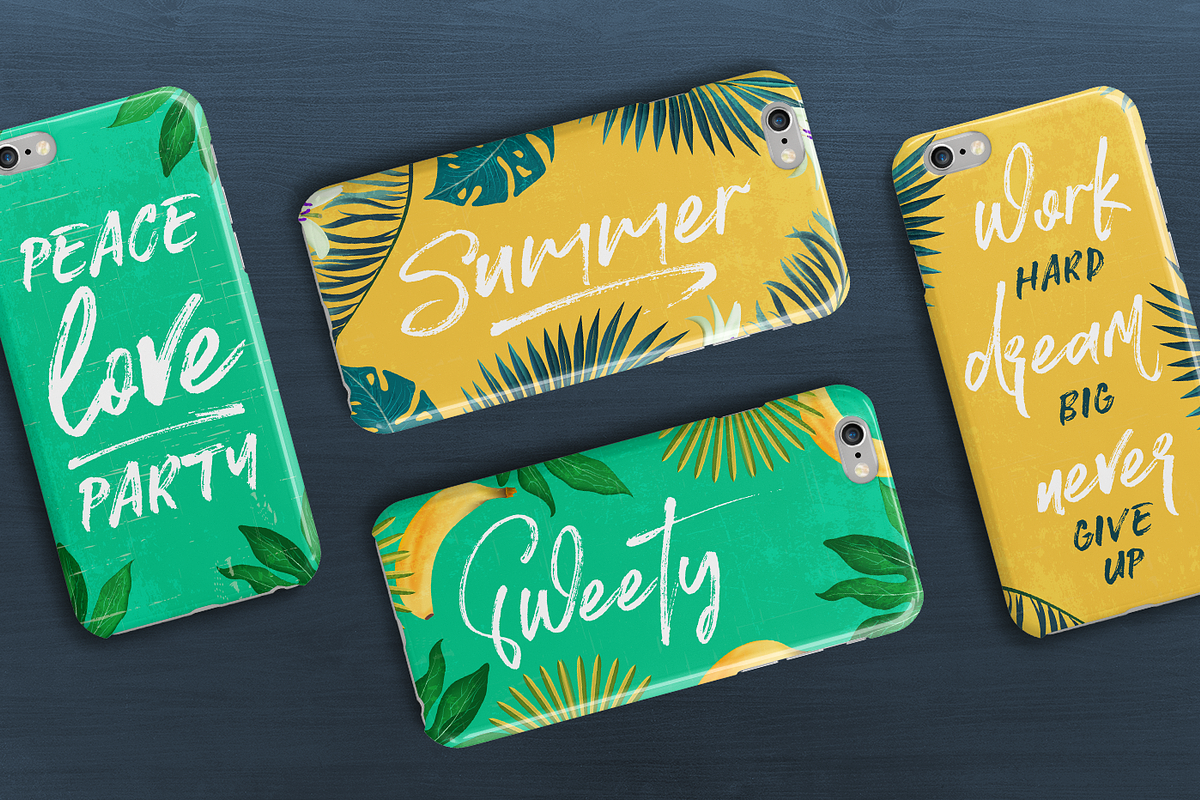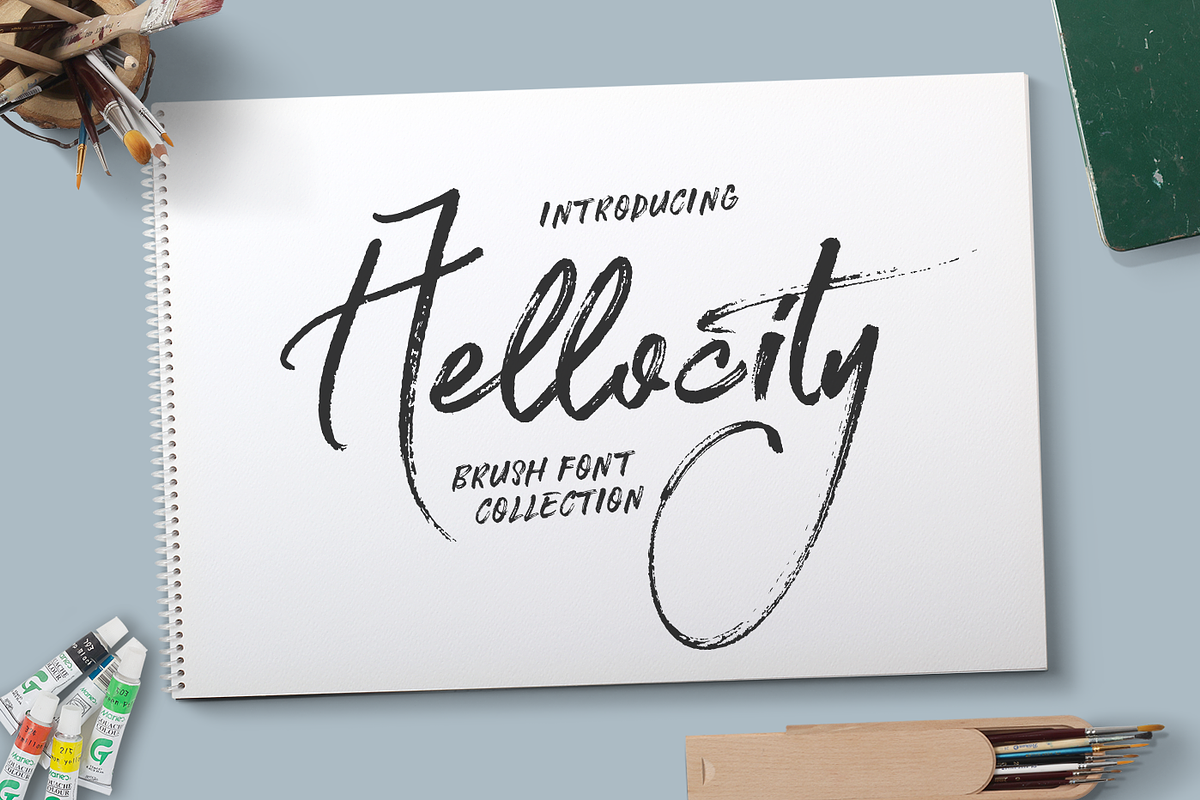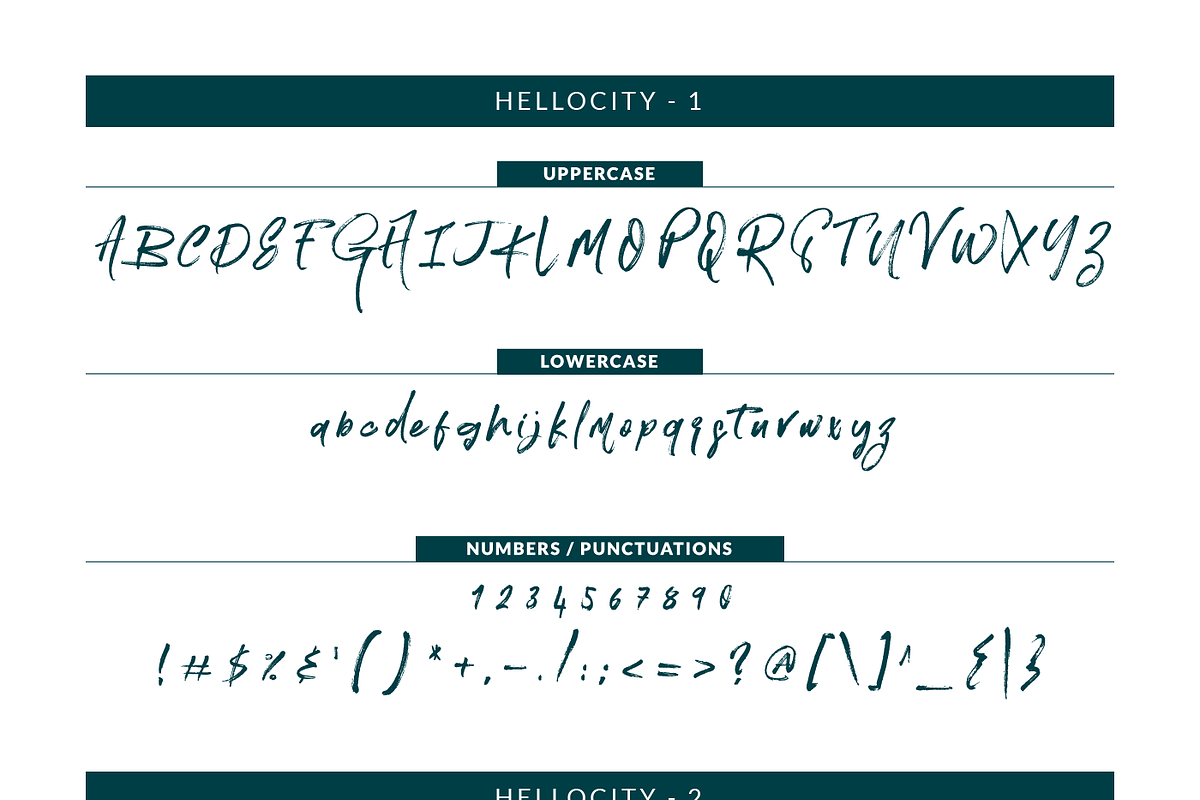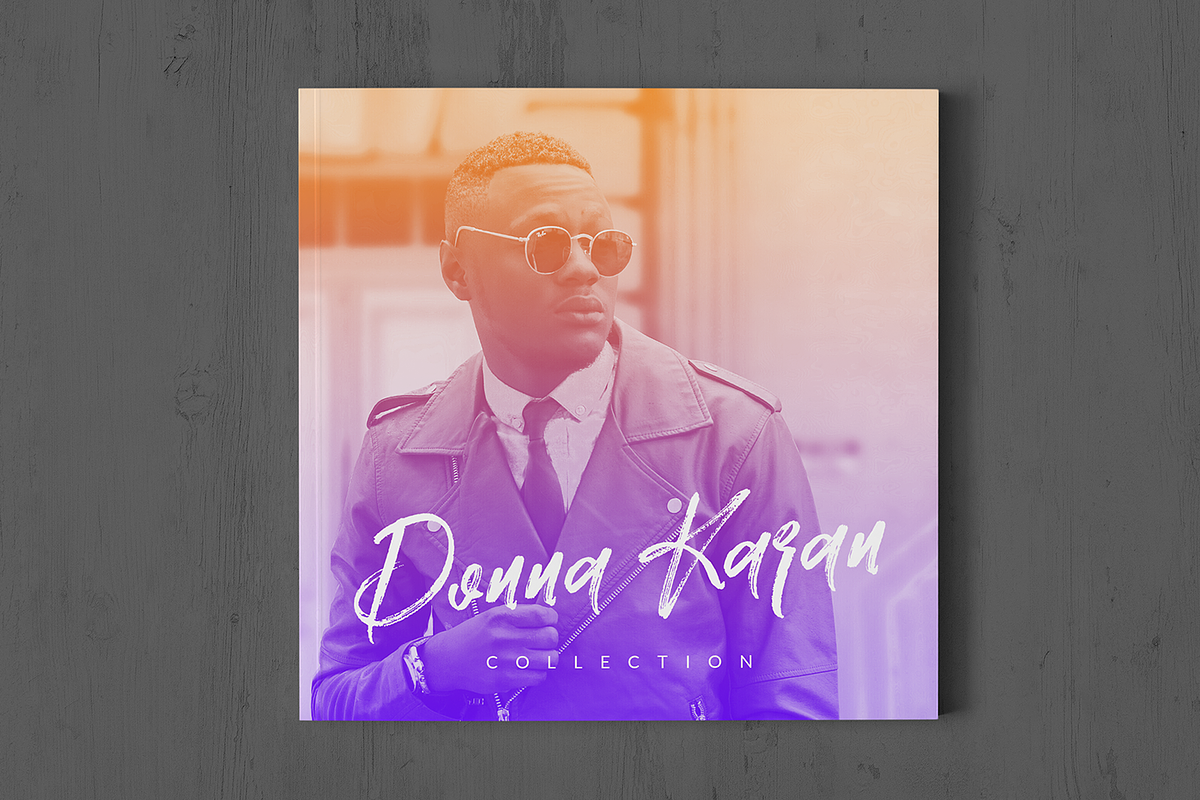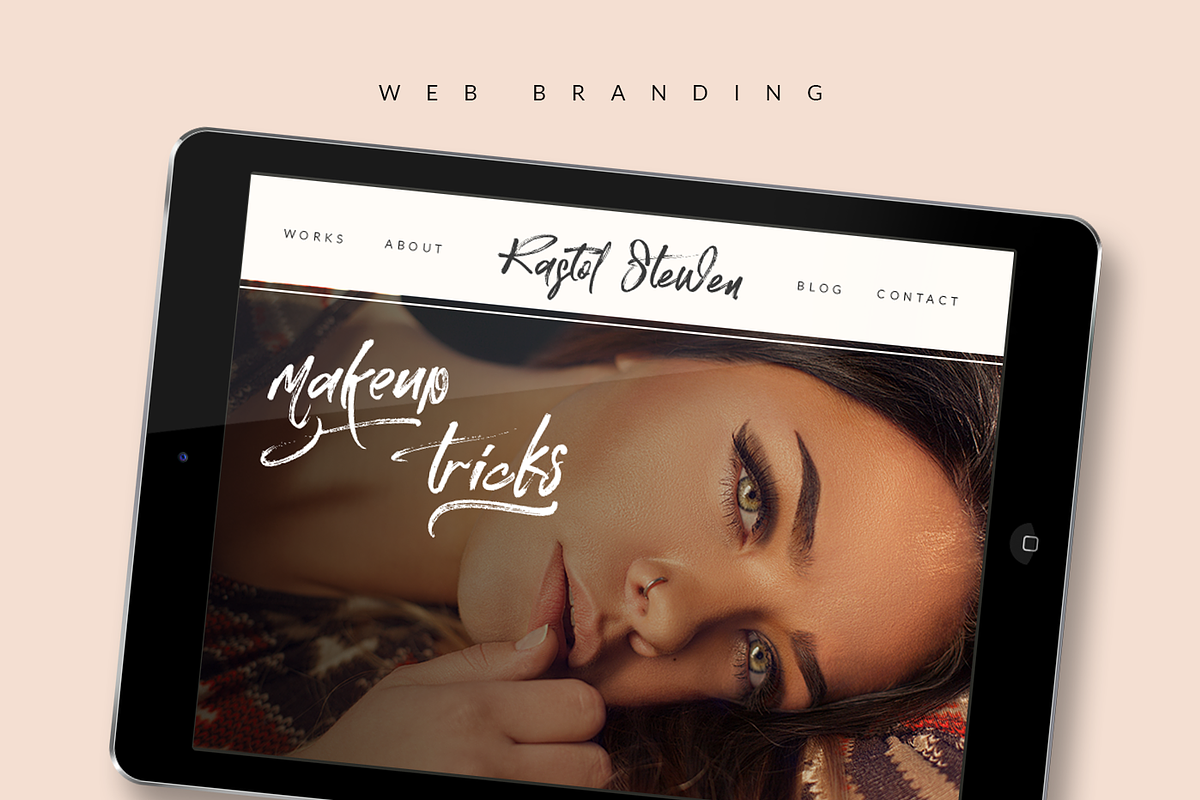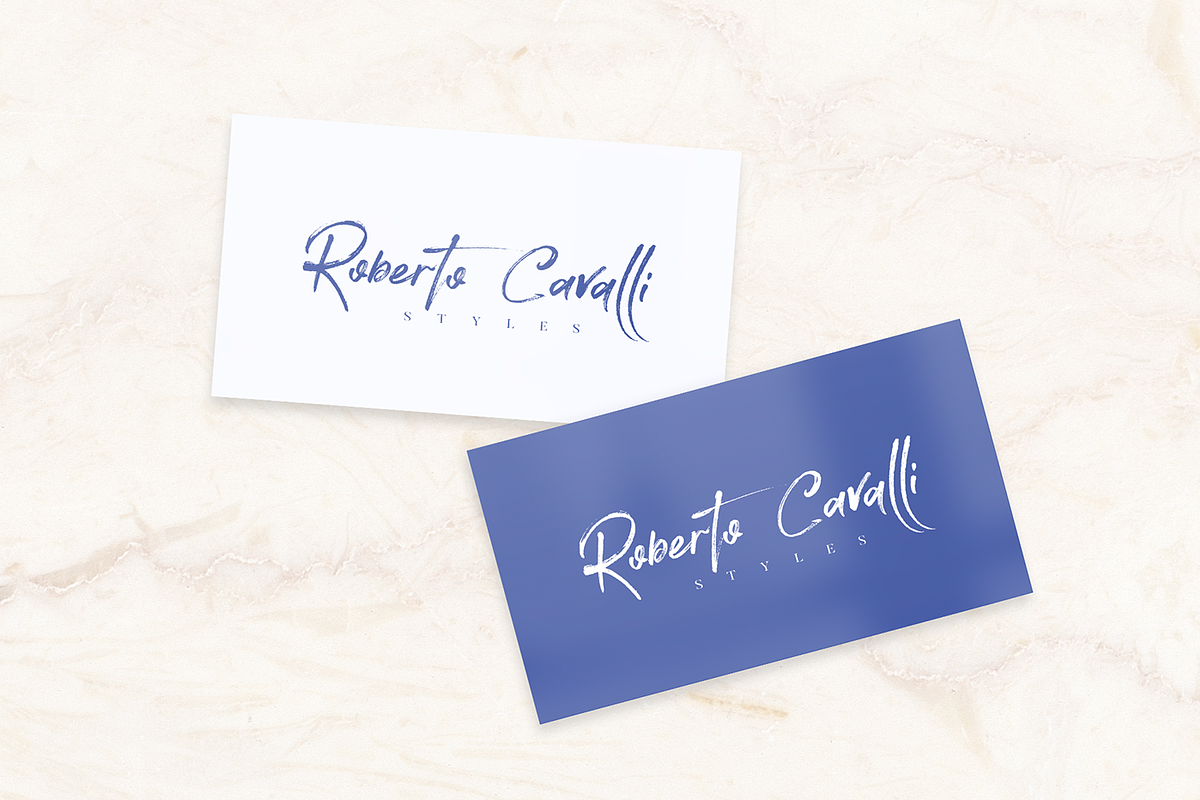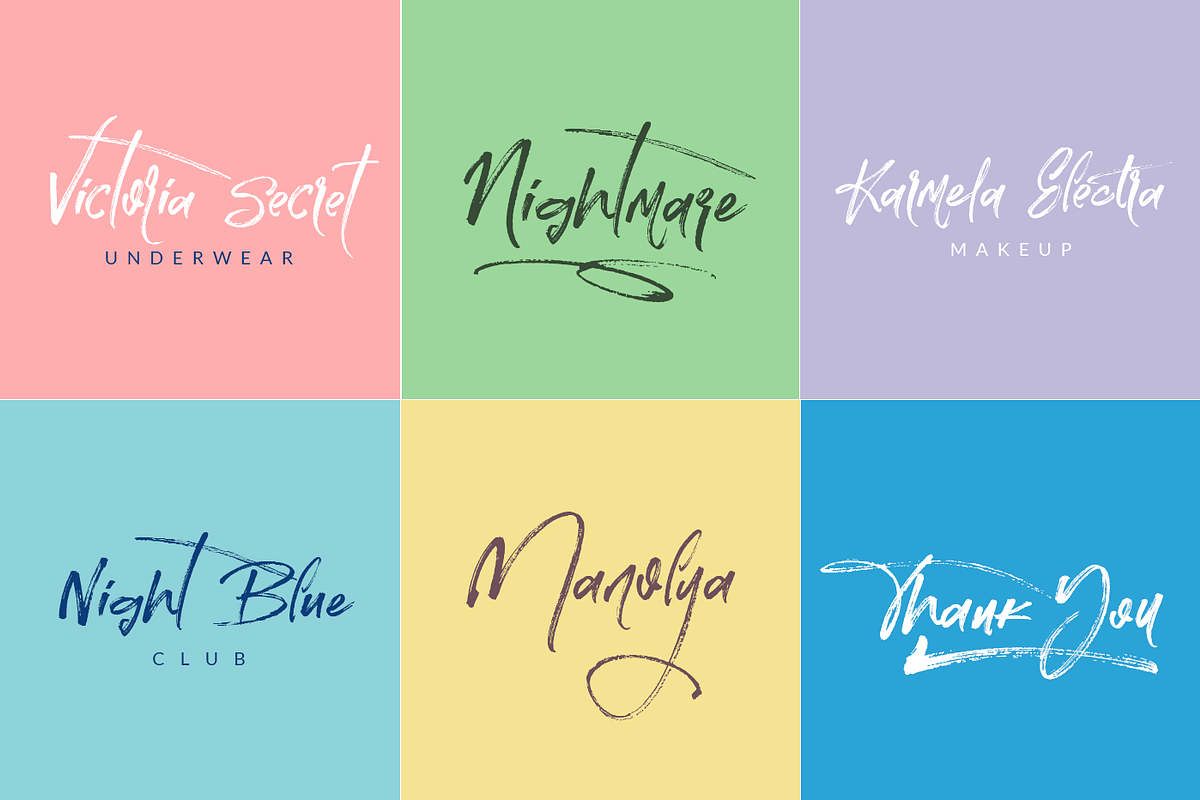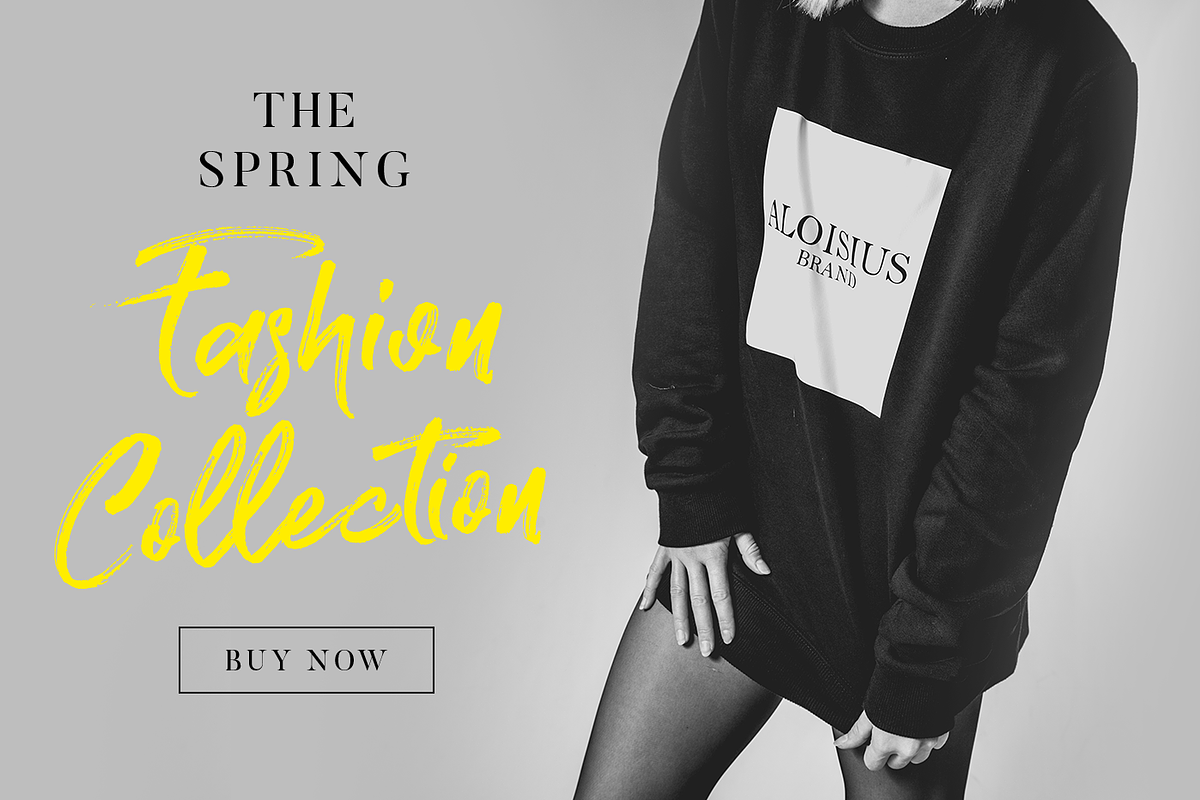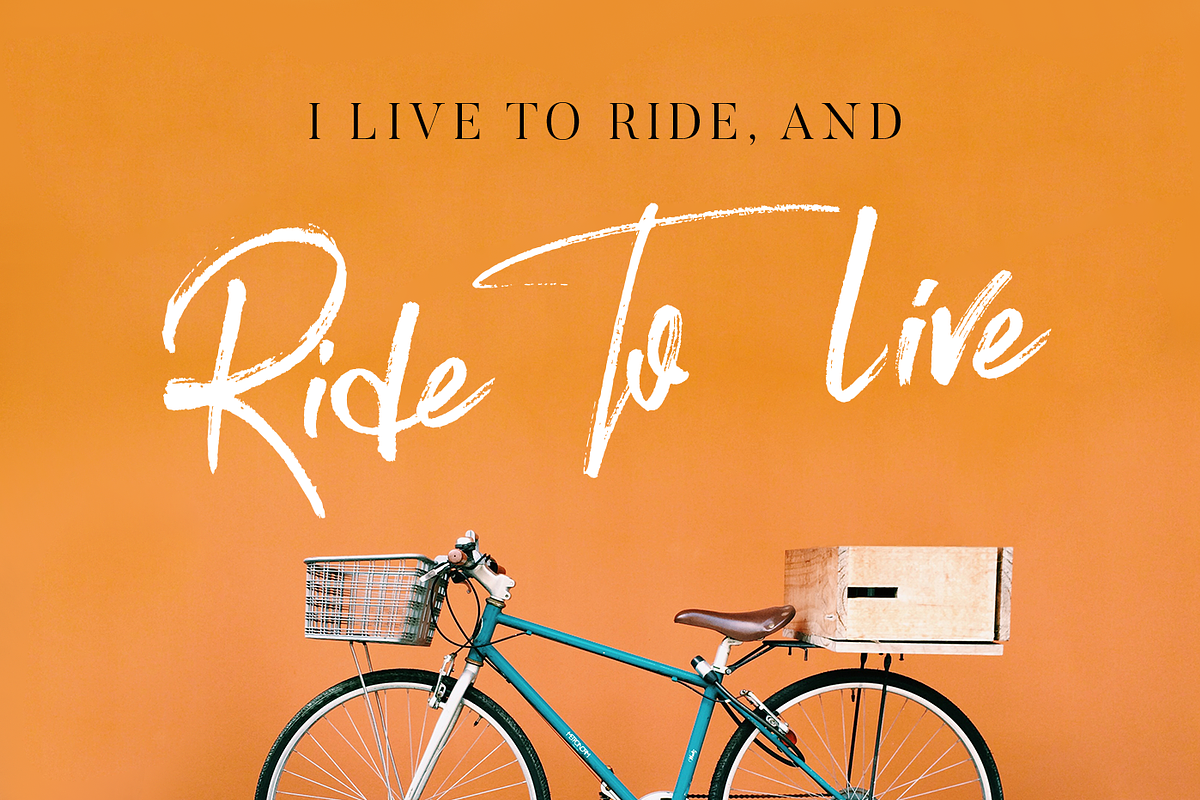
Hellocity
Hellocity Brush Font : Hello City Brush Font has almost an unique design that posseses elegancy and charm. Fluidity of ink and hardness of brush created the unique characteristics of the font. You can see the harmony of the curls among the letters. With Hellocity, you can make your projects, brands, presentation of your collections, magazines, logos, packagings and websites be eye-catching with pleasure. Hello city includes 5 font files ;
These 3 files above can be used together to create much more combination even for the same word. Apart from 3 font files, you can bring your designs into the forefront with alternative letters.
Just in case you may want to enrich your designs with remarkable differences. Hello to new and particular designs with Hellocity Big Alternate Collection.